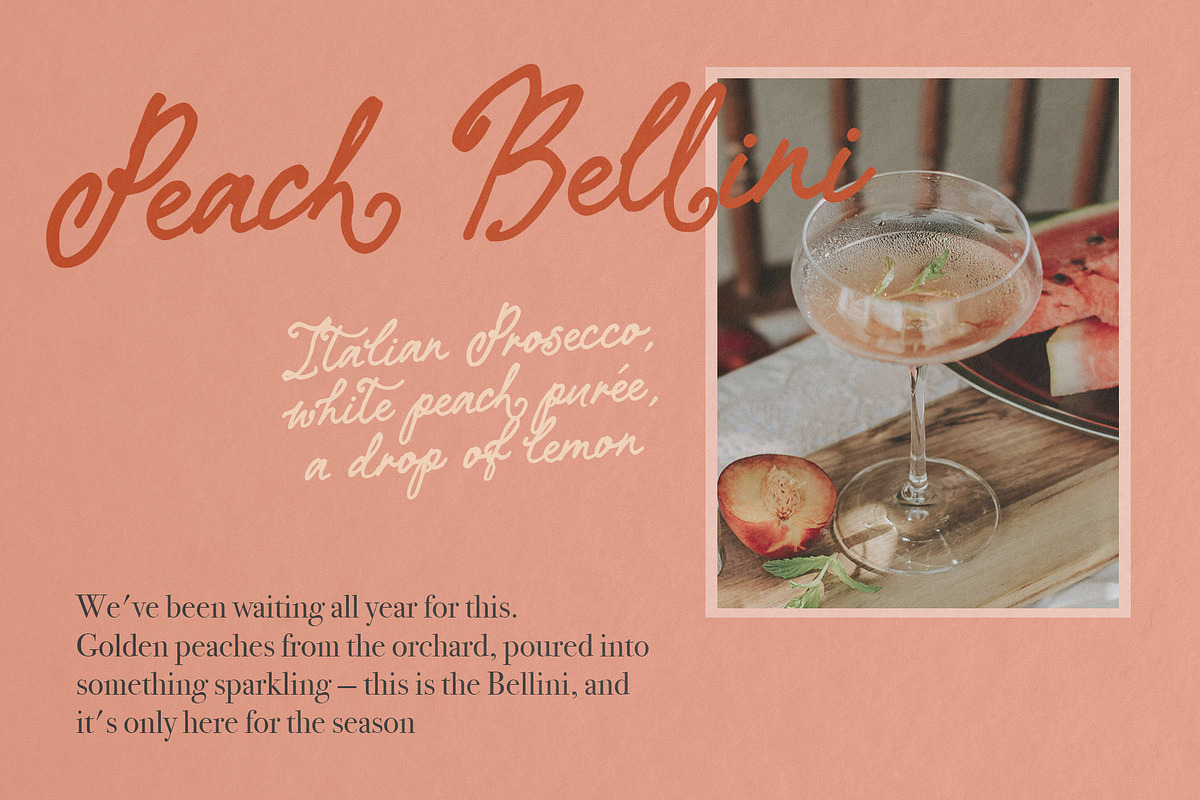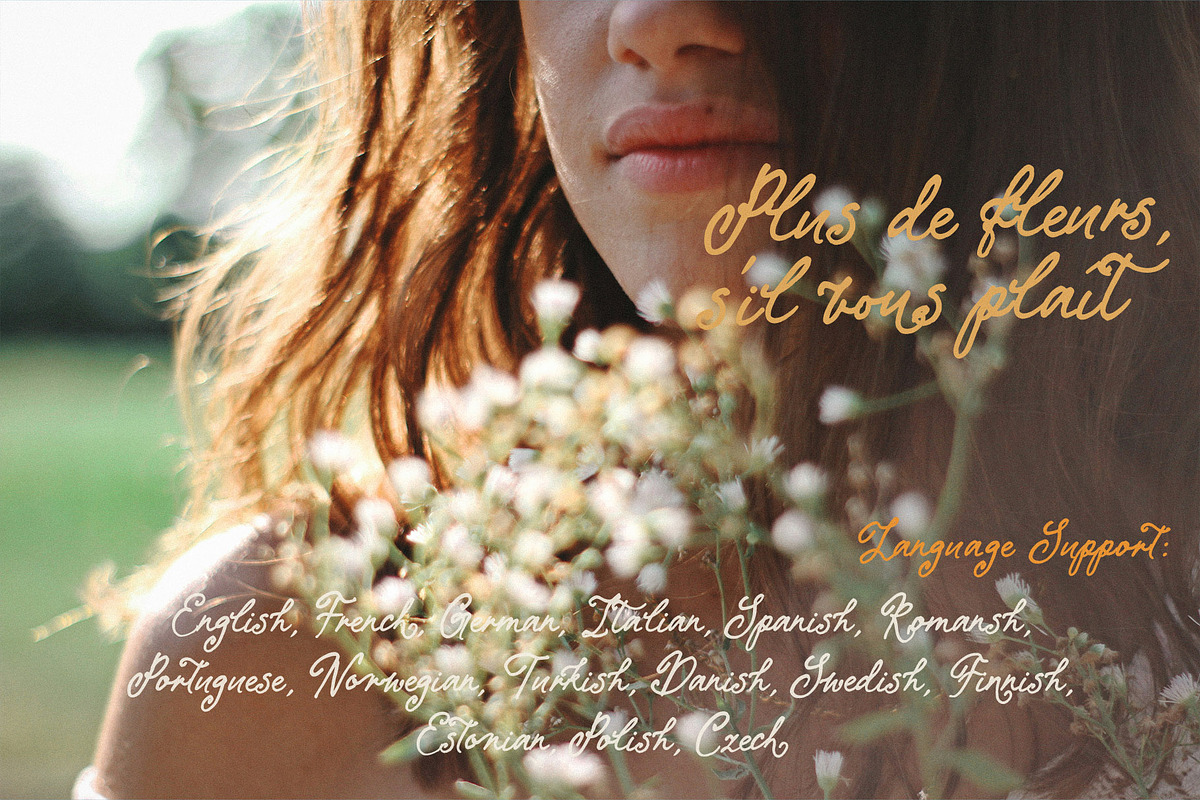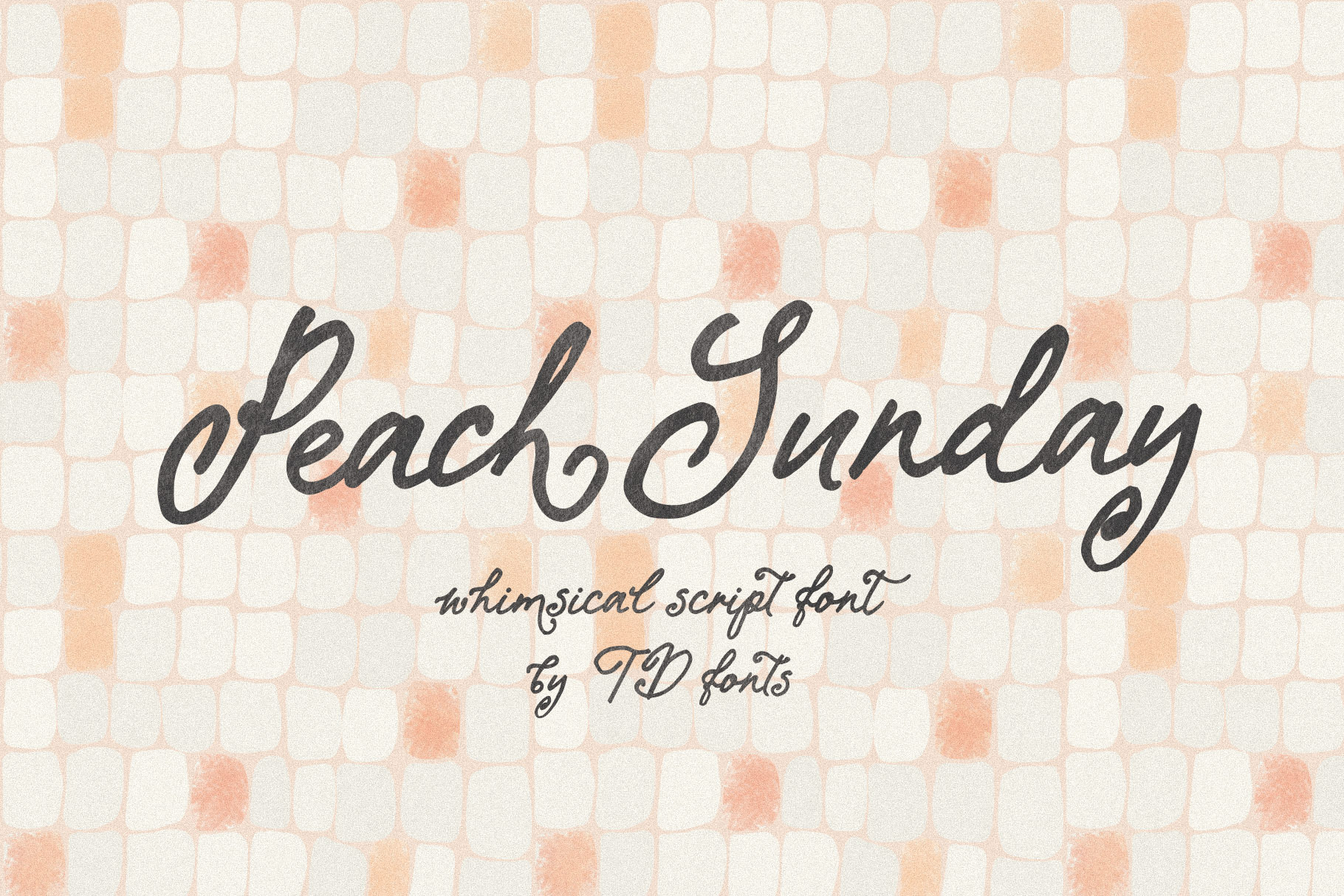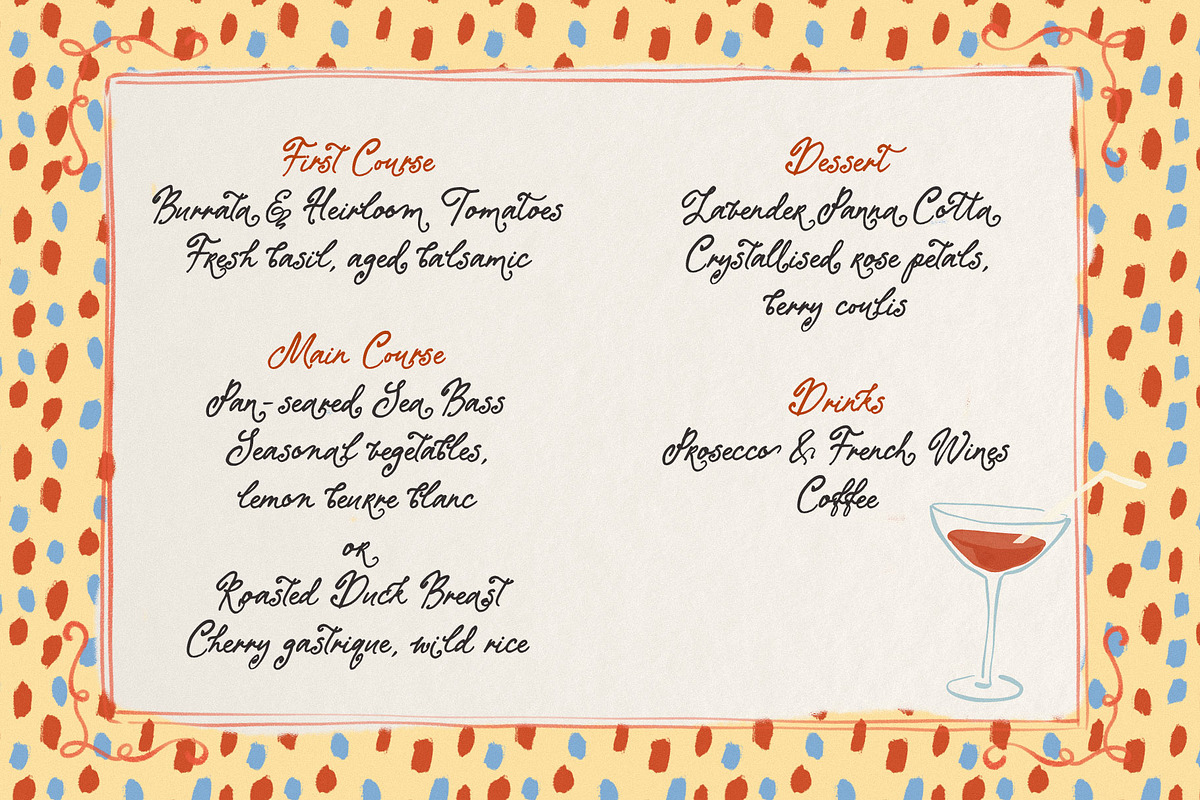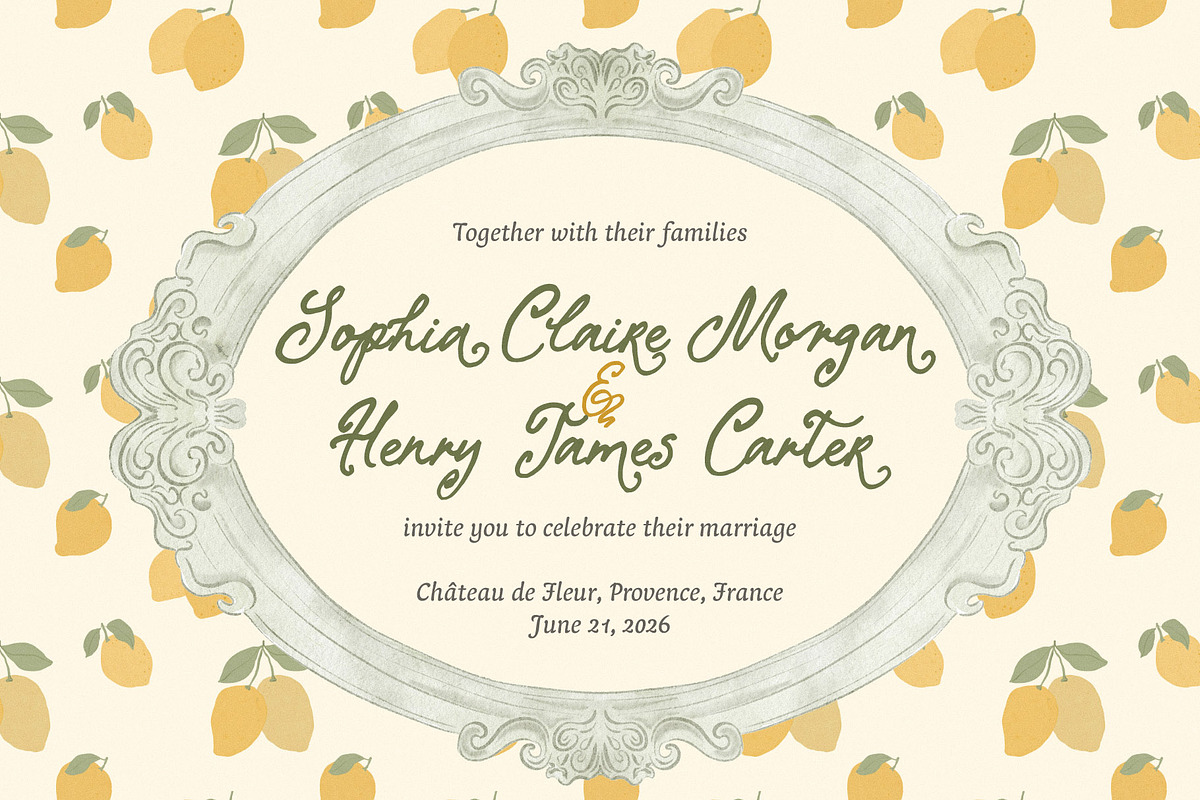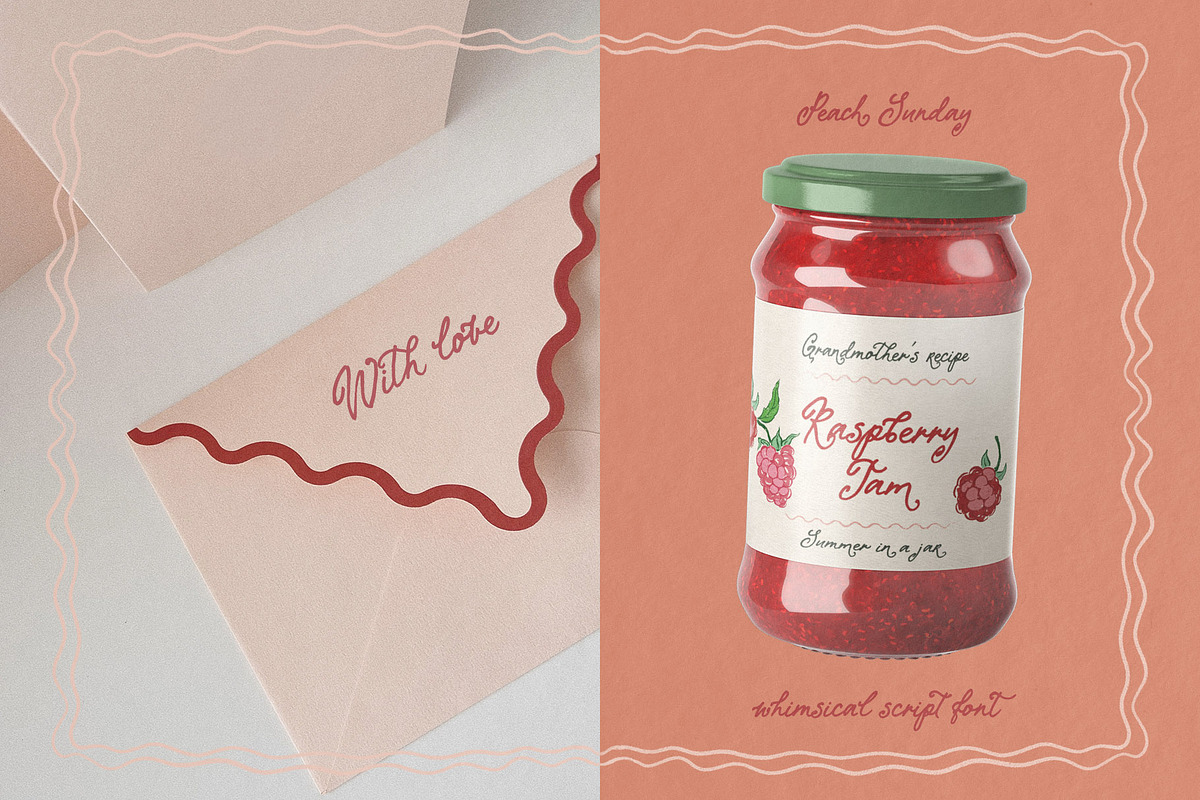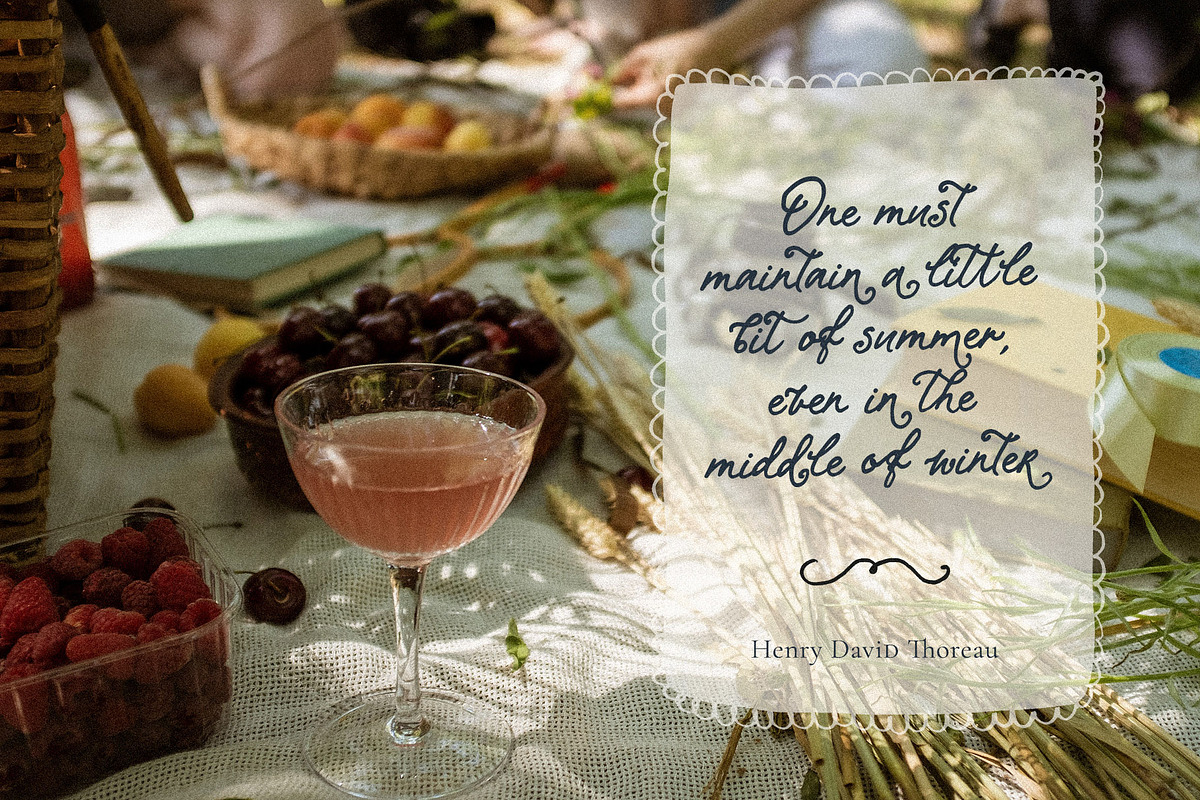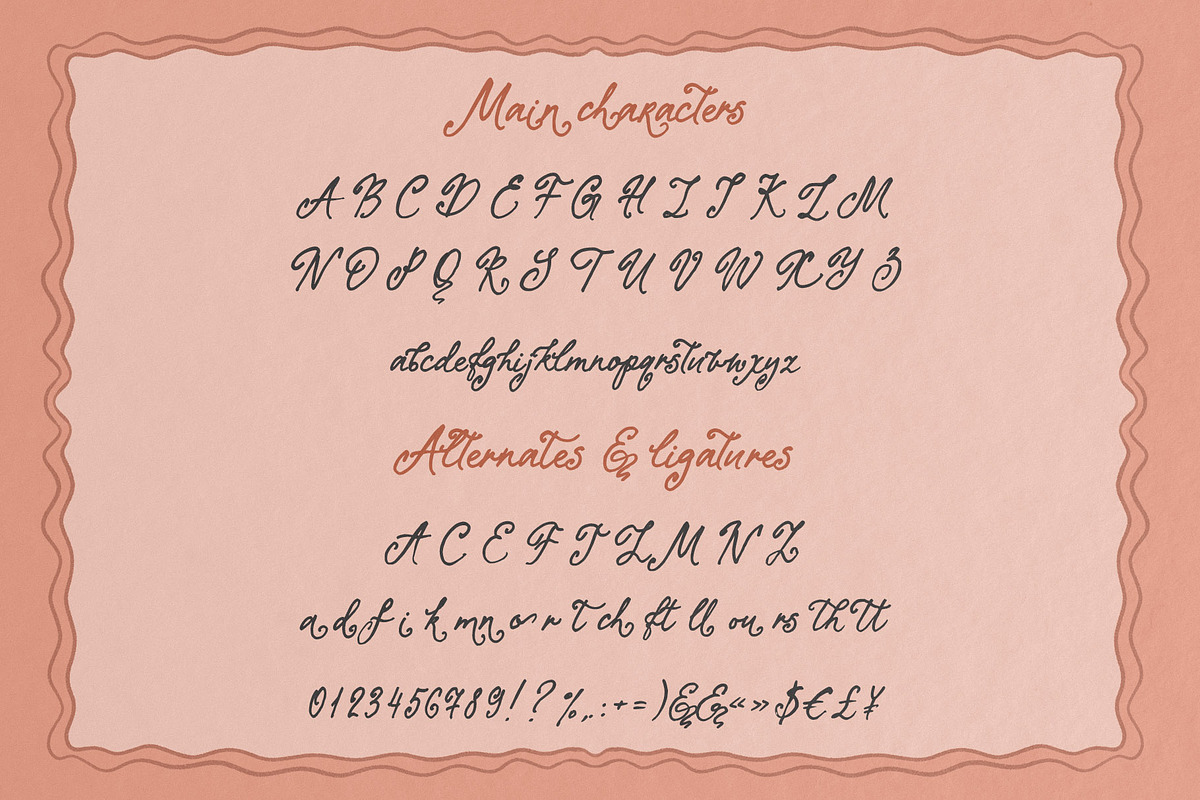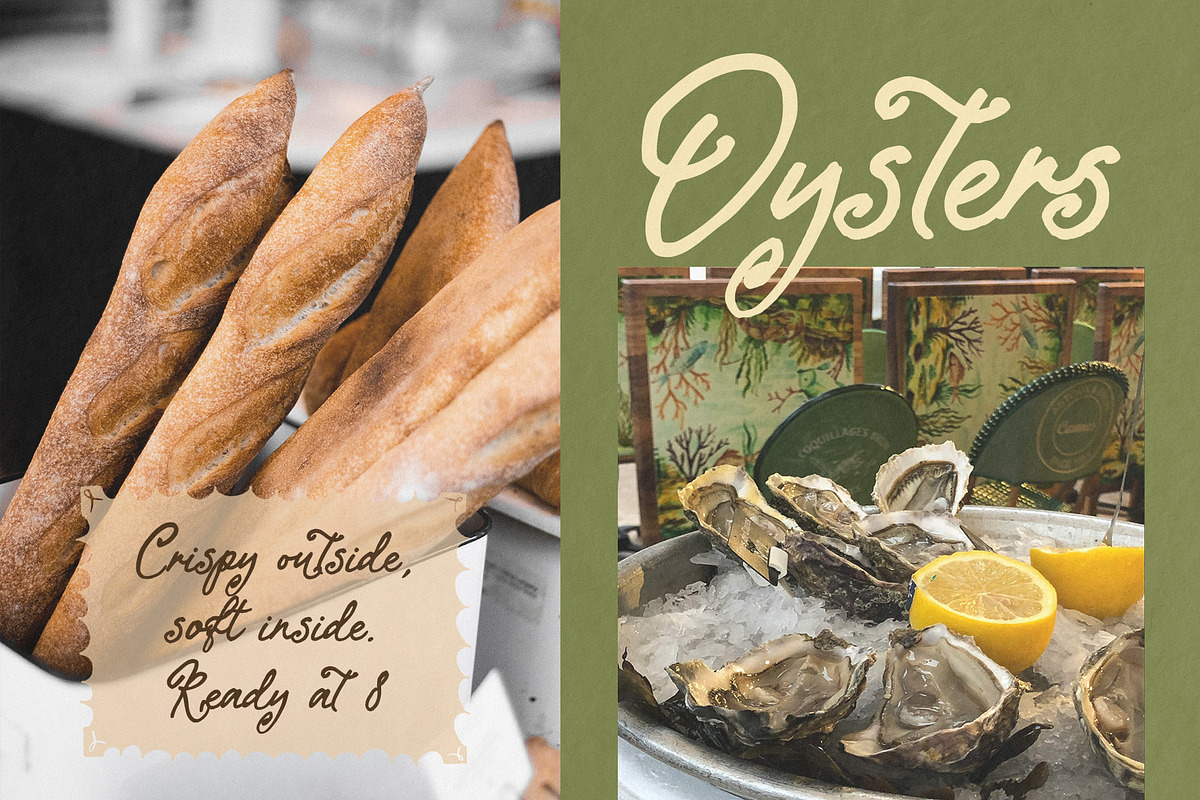
Whimsical script font Peach Sunday
Peach Sunday — Whimsical Handwritten Script Font with Swash Alternates
Peach Sunday is a whimsical handwritten script font with a warm, romantic character — gentle, feminine, and full of the unhurried sweetness of a slow Sunday morning in golden light.
Drawn by hand with a dip pen on paper and carefully vectorized to preserve everything that makes handwriting feel alive, this font carries the energy of real calligraphy without its stiffness. The strokes have genuine weight and contrast: rich on the downstrokes, delicate and airy on the hairline connections. There's a natural rhythm to the letterforms — a subtle bounce in the baseline, expressive swirling capitals, and swash descenders that curl with the kind of flourish you'd find in a skilled hand's signature. Nothing here was engineered to be perfect. It breathes the way handwriting does when the hand is calm and unhurried. A quiet vintage charm runs through every glyph, but it reads completely current.
This is a font that thrives where design needs to feel personal and handcrafted, not generated. It carries a wedding invitation and a candle label with the same graceful ease. It works on boutique packaging and a café menu, a product label and a social media quote. Wherever a project calls for femininity, warmth, and a touch of handmade elegance — this font belongs there.
Swash descender alternates for selected lowercase letters — expressive flourishes for logotypes, monograms, and signature-style layouts
Ligatures for natural, varied lettering
Wedding stationery, invitations & celebration design
Feminine branding, logo design & brand identities
Candle, soap & lifestyle product packaging and labels
Café and restaurant menus
Greeting cards, birthday & holiday designs
Editorial headlines, quotes & social media content
Posters, prints & whimsical wall art
Websites, Canva templates & digital design with a warm, personal feel
Any project that calls for handmade charm and graceful feminine energy
Font features:
Dip pen script with natural stroke contrast — rich downstrokes, delicate hairline connections
Expressive swirling capitals with open loops and tall, elegant ascenders
Warm, playfully irregular hand-drawn character — imperfect in the most appealing way
Swash descender alternates for selected lowercase letters — adds personality to logotypes and display use
Ligatures for expressive, creative lettering variety
The aesthetic: Peach Sunday feels like a handwritten note tucked inside a bouquet, a logotype on a jar of homemade jam, a headline on a wedding menu card. It's the right font when a design needs to feel warm and intimate — not polished to clinical perfection, but made with genuine care. Feminine without being fragile. Playful without being loud. The kind of type that makes a design feel like it was made by someone who really meant it.